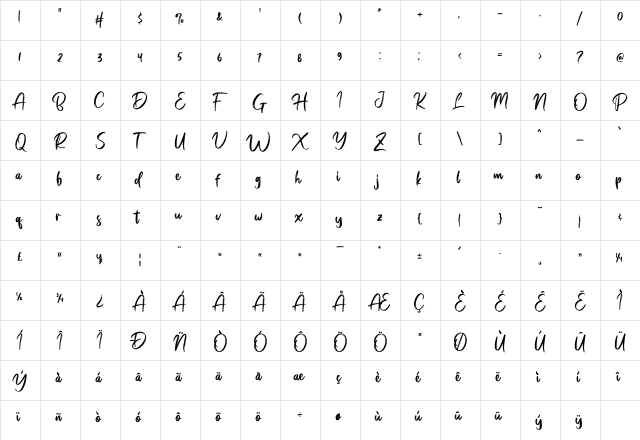
Bridgeriden Regular
Design Context for Bridgeriden Typeface
Bridgeriden is a composed and adaptable typeface that performs quietly and consistently across a wide range of design contexts.